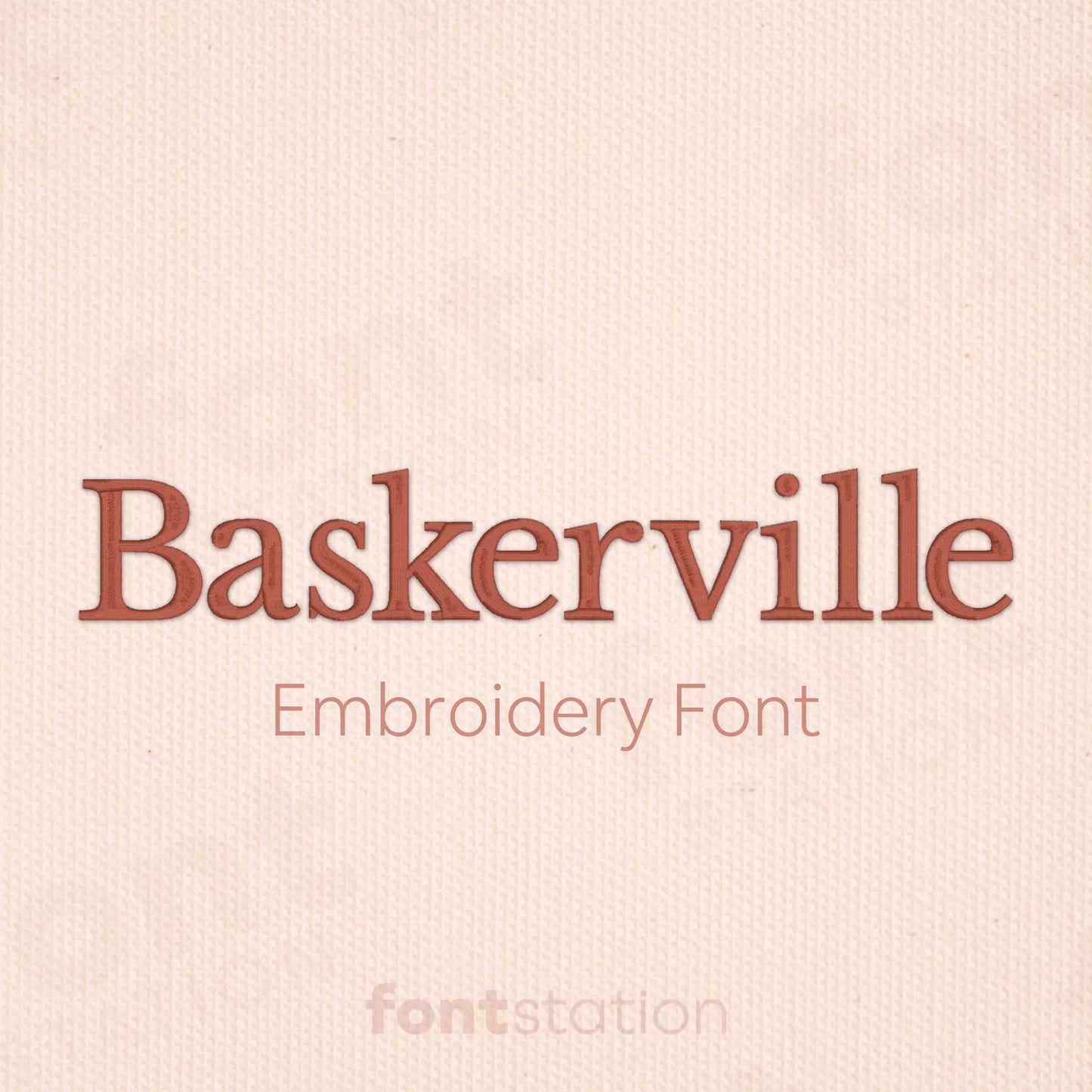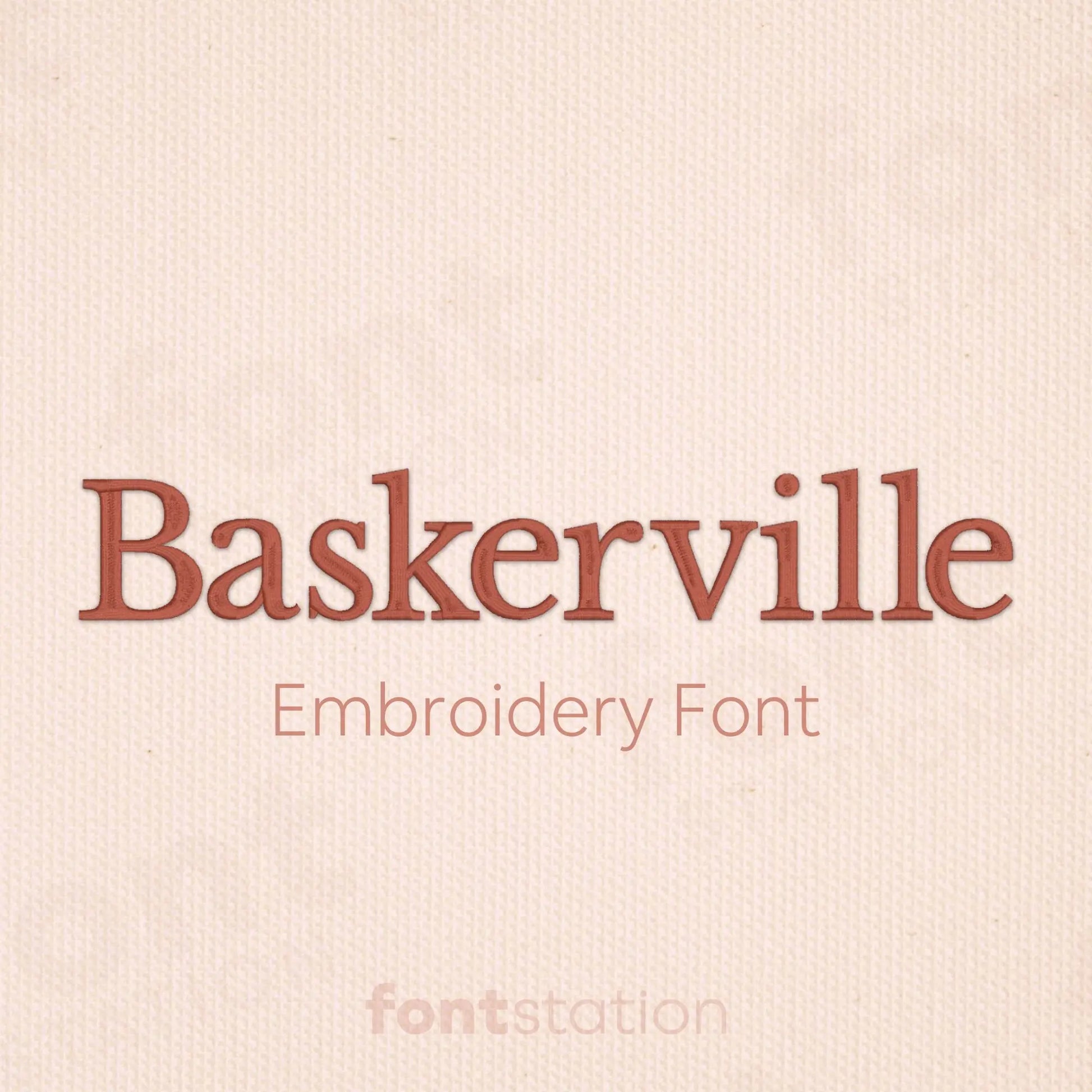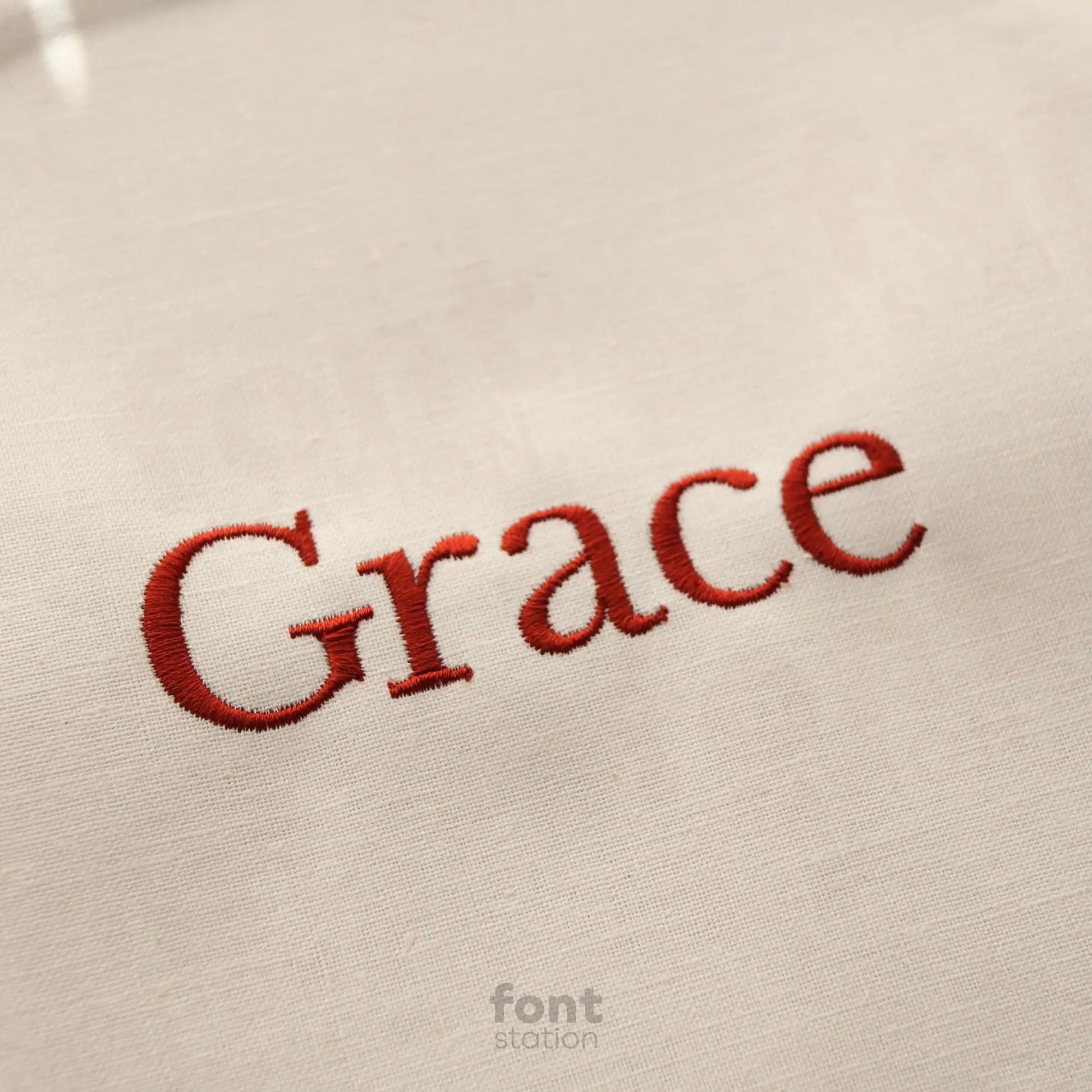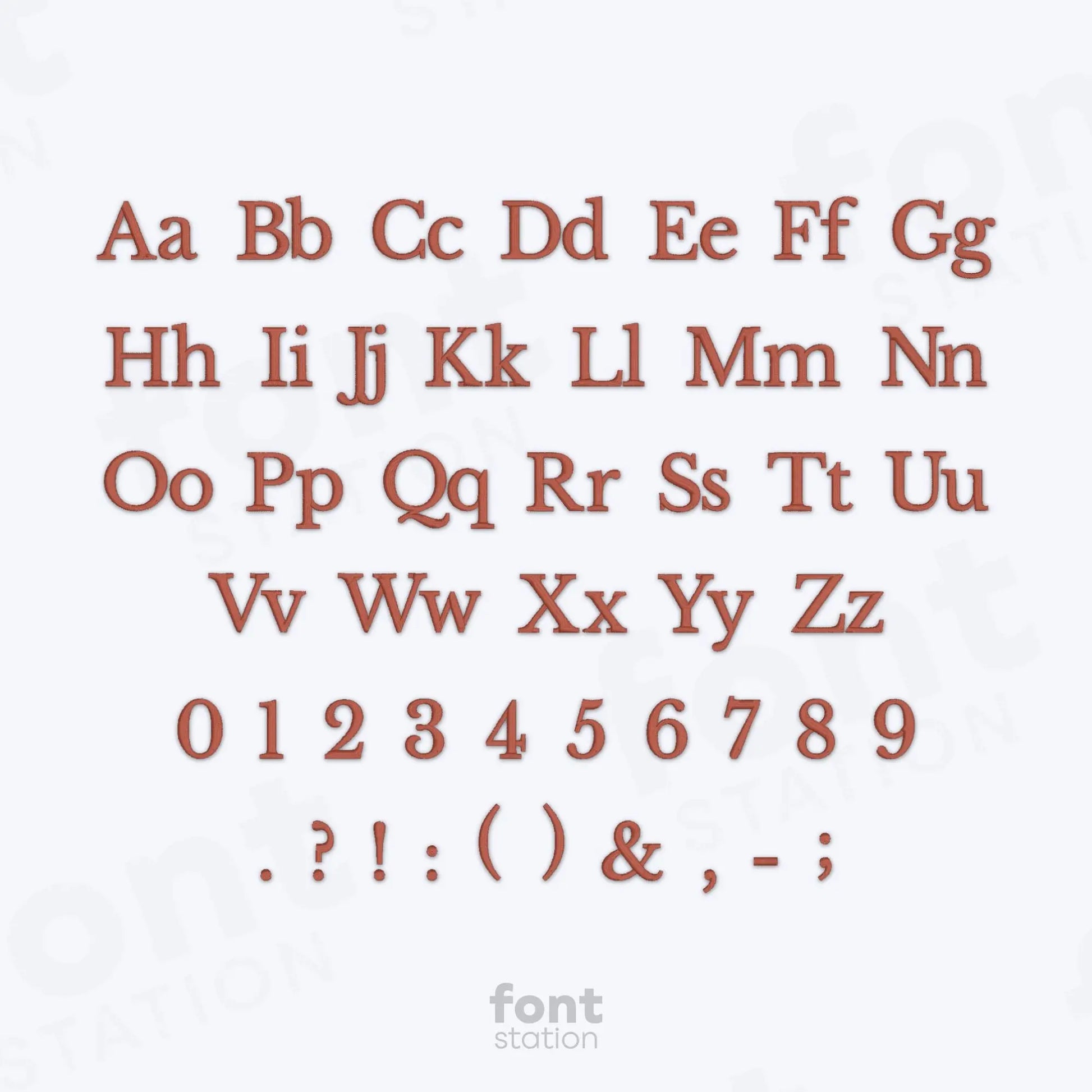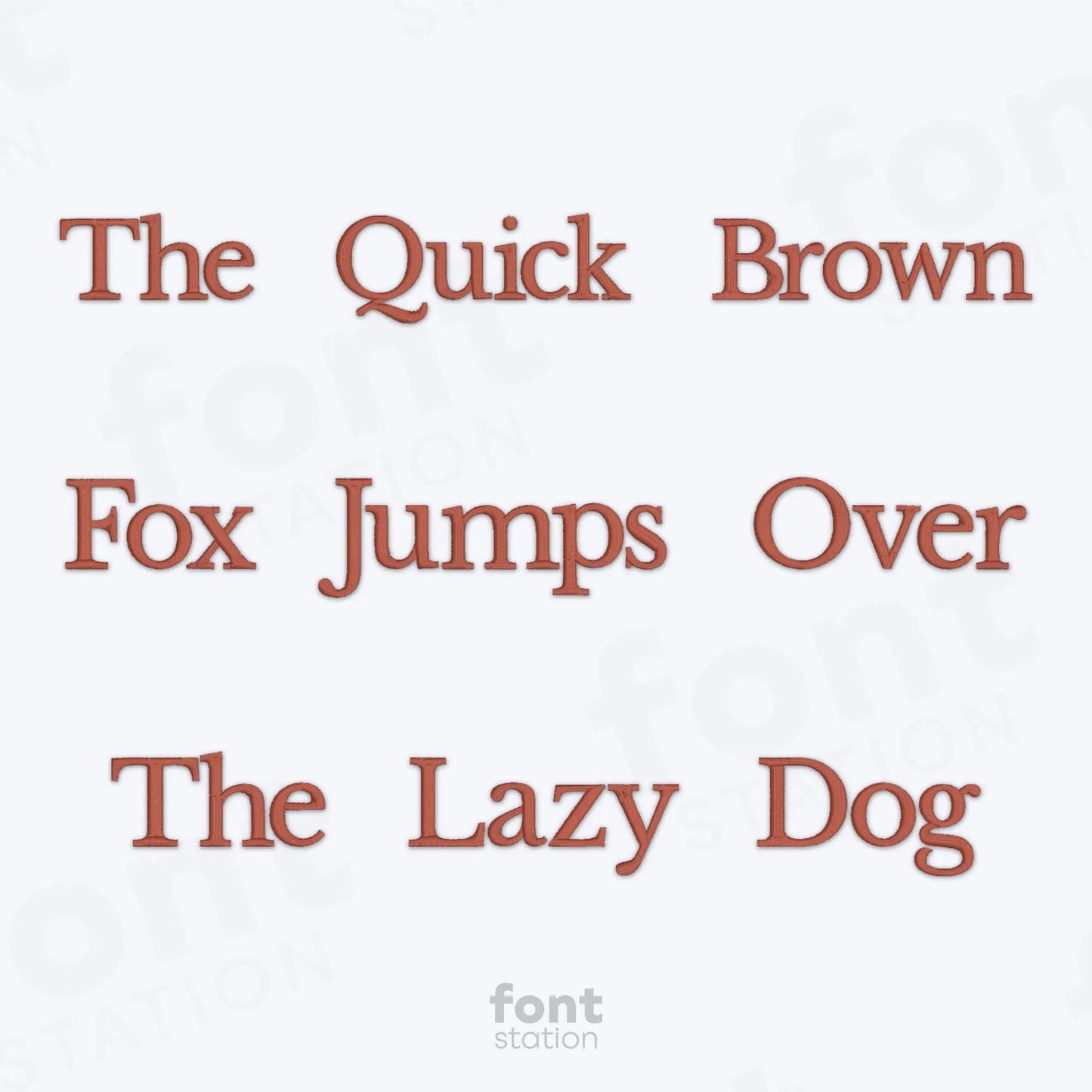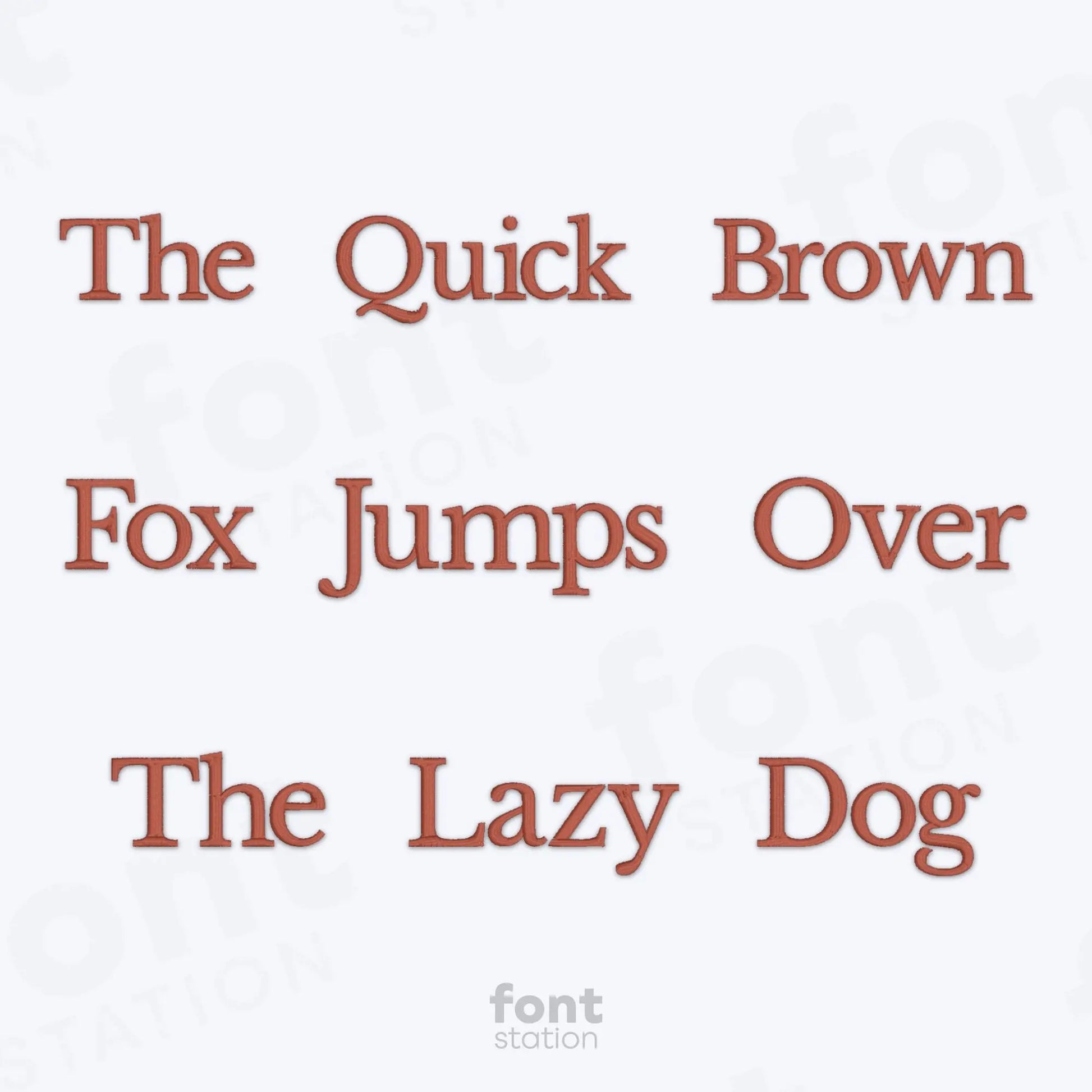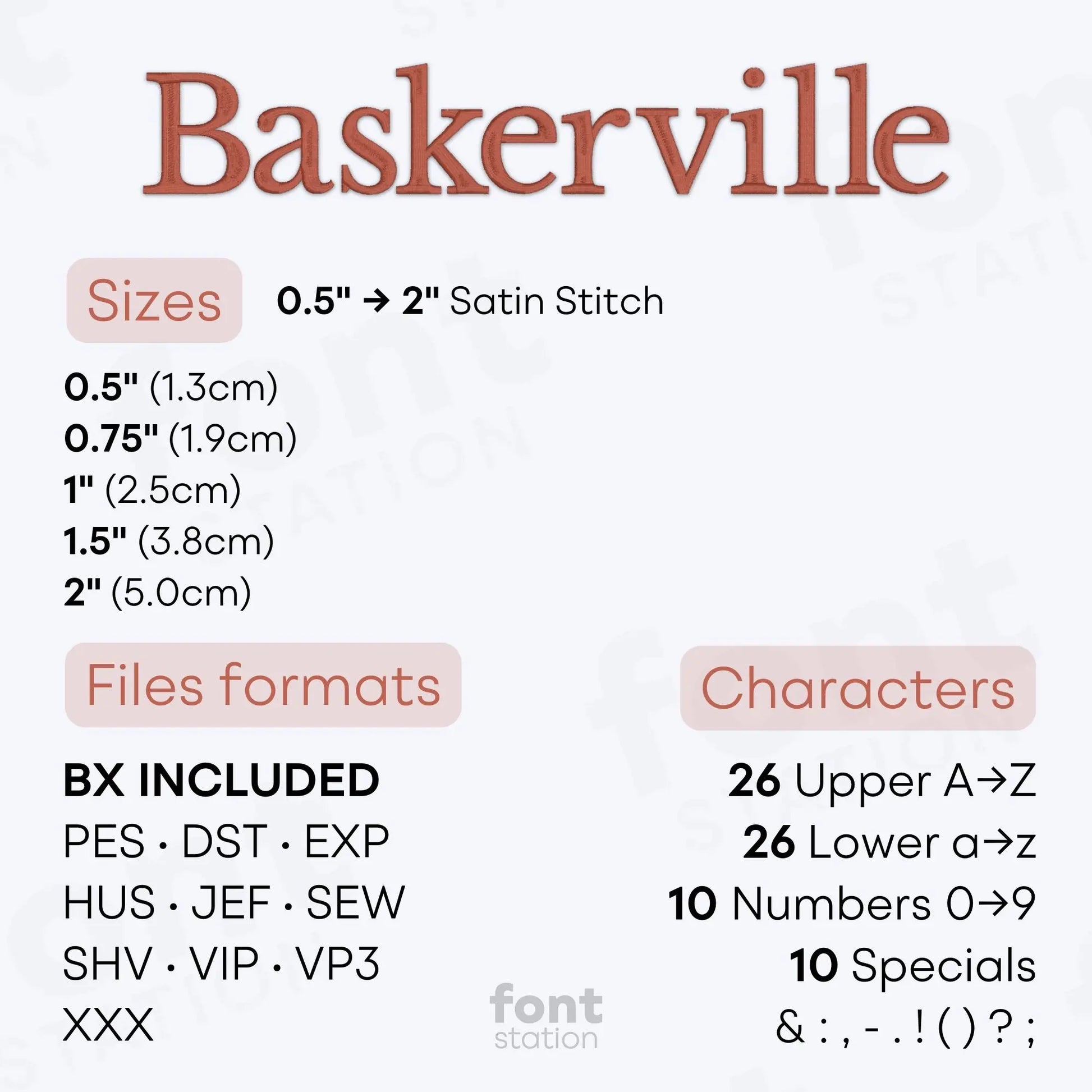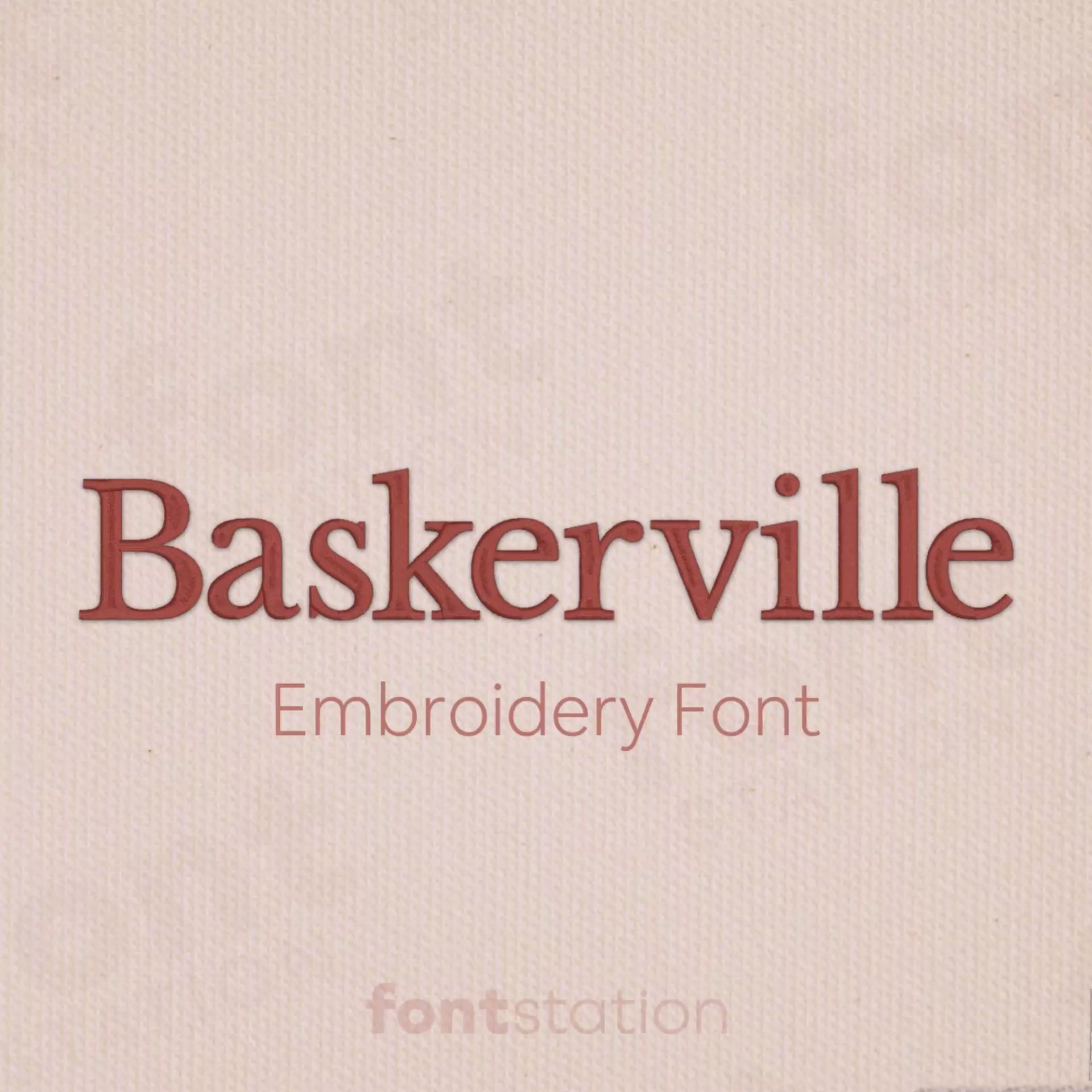
Baskerville Embroidery Font
Discover our Baskerville embroidery font - an elegant, thin serif alphabet designed to stitch beautifully on any embroidery machine. These refined letters are perfect for adding timeless style to your projects and designs with smooth, professional results.
About the Baskerville Embroidery Font
Our Baskerville embroidery font brings timeless elegance to your embroidery designs with a refined thin serif alphabet.
The Baskerville embroidery font features a classic thin serif alphabet with crisp, delicate letters that add a sophisticated touch to monograms, home decor, wedding projects, and personalized gifts. This elegant embroidery font is professionally digitized to stitch smoothly on any embroidery machine, delivering clean, precise results on a wide range of fabrics. Available in BX, PES, DST, JEF, EXP, VP3, and HUS formats, it's a must-have font for high-end, minimalist embroidery designs.